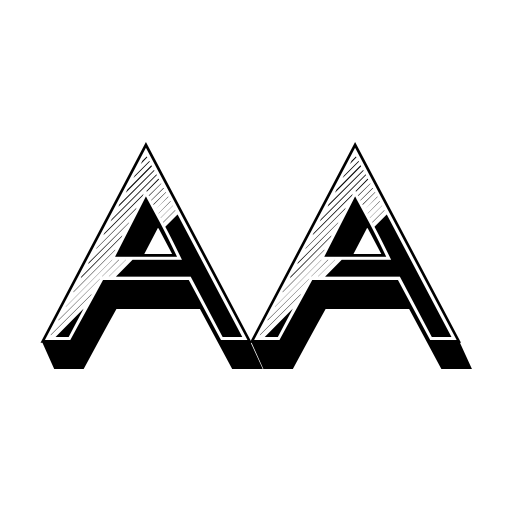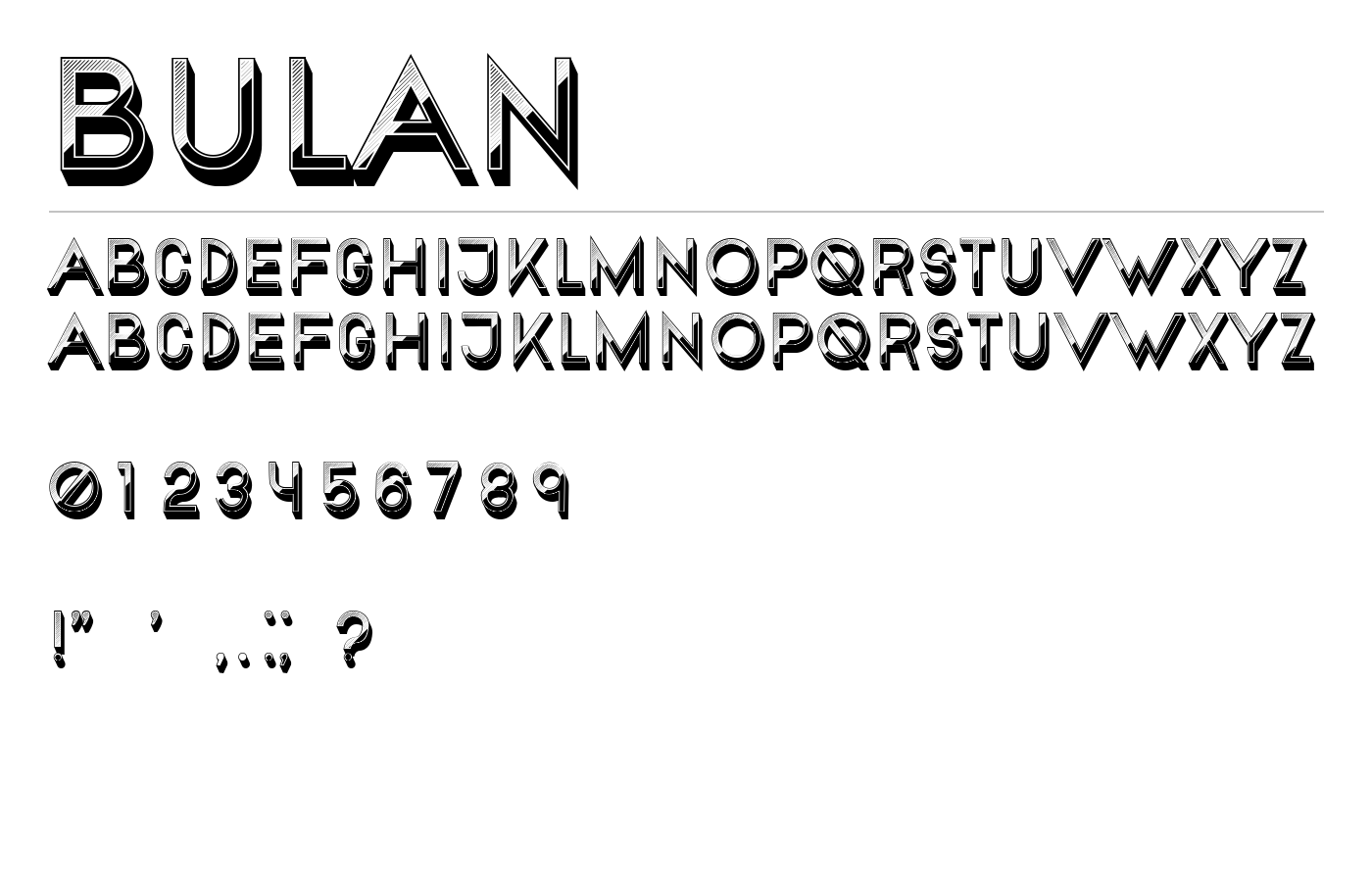
Bulan is a bold, playful display font with a unique three-dimensional layered effect that combines sharp, geometric shapes with striped and solid fill patterns. Its uppercase-only design and strong contrast create a striking visual impact, making it ideal for eye-catching headlines, logos, and posters where a fun, modern vibe is desired. This font works best in creative branding and editorial designs that seek to stand out with a distinctive, retro-inspired style.
Bulan Font
About Bulan Font
| Font family | Bulan Font |